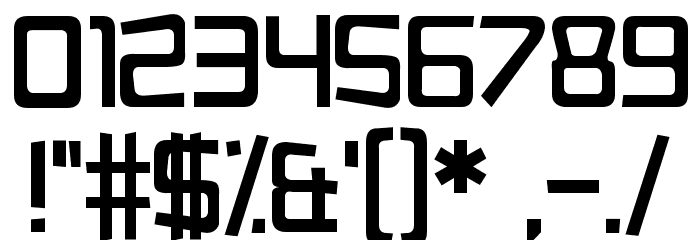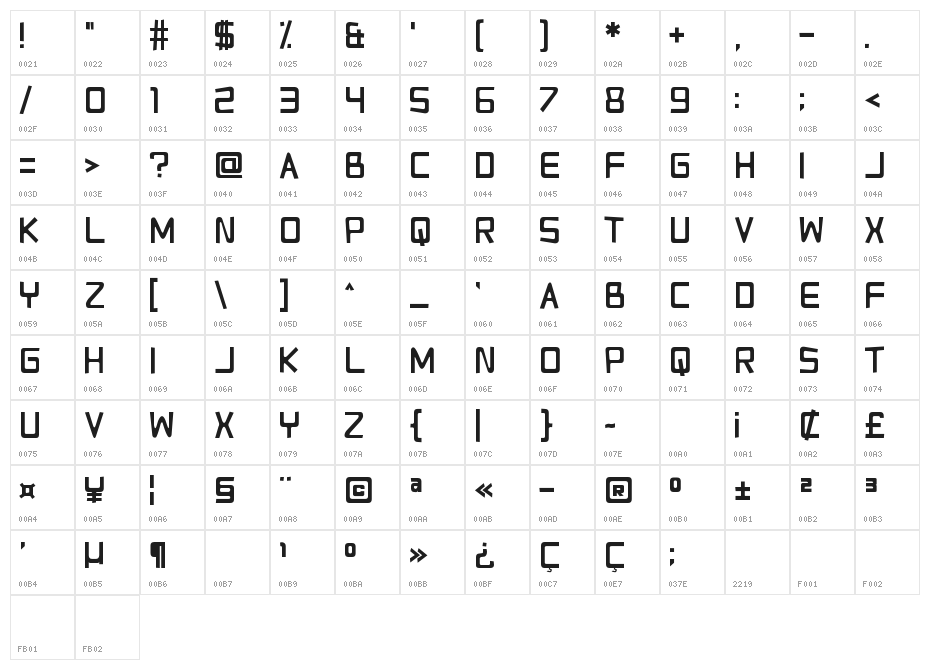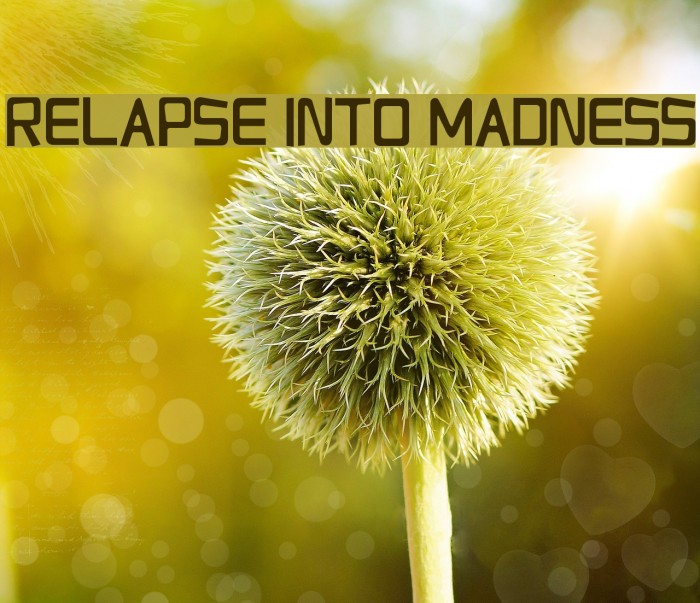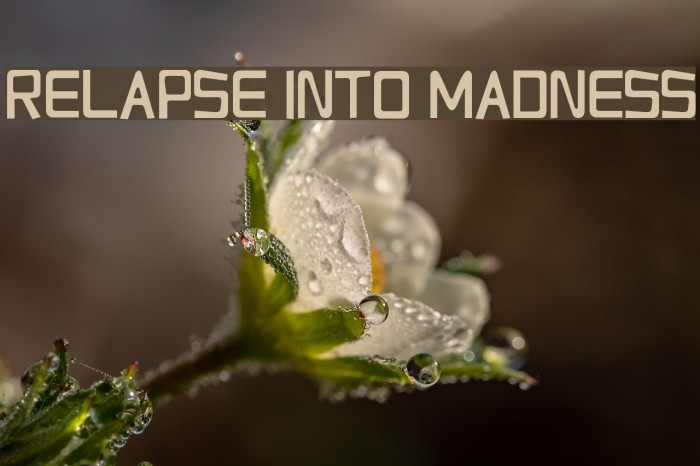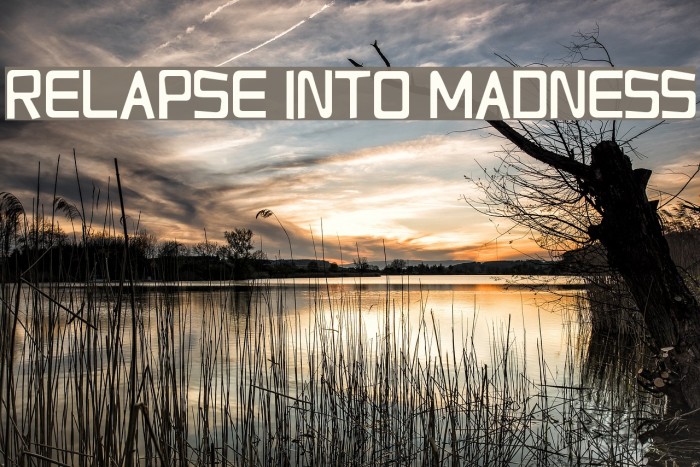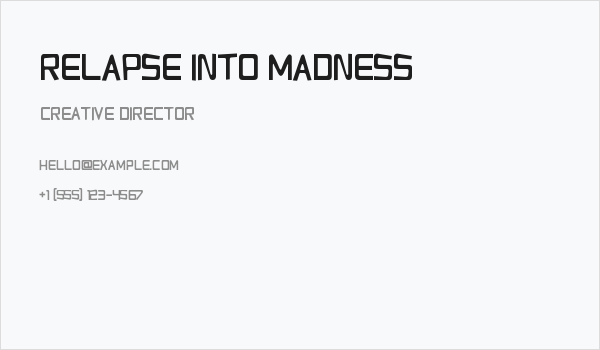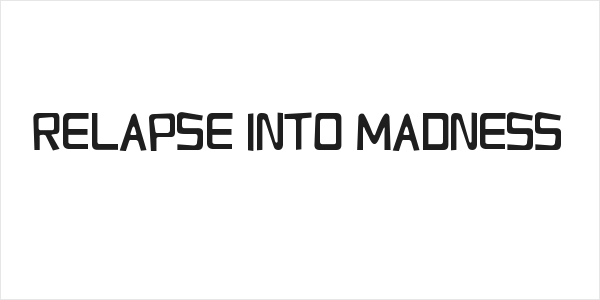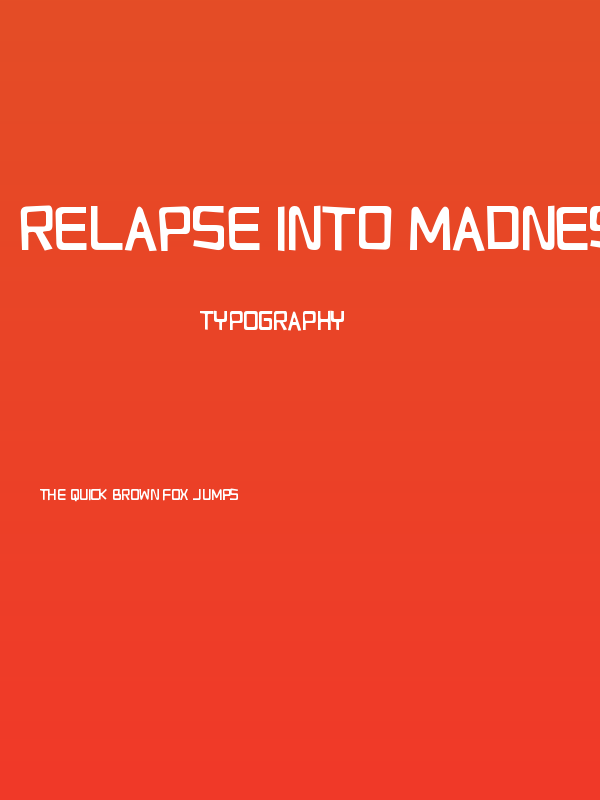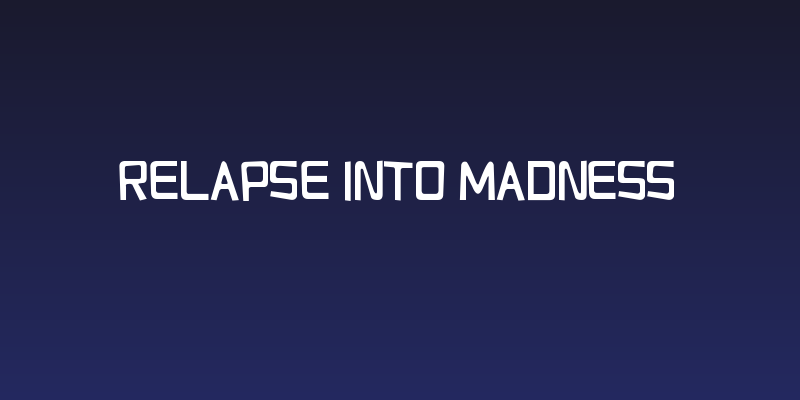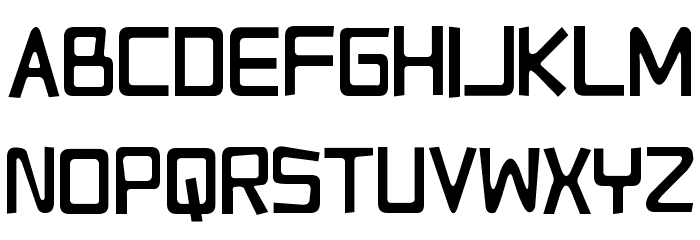
Relapse Into Madness Font
Relapse Into Madness Description
This font features a bold, geometric design with a modern and futuristic aesthetic. The characters are constructed with straight lines and sharp angles, giving it a distinctive, tech-inspired look. The uppercase and lowercase letters maintain a consistent height, contributing to a uniform appearance. The numbers and special characters are designed to match the angular style of the letters, ensuring visual coherence across all glyphs. The font's clean lines and structured form make it suitable for projects that require a contemporary and edgy feel.